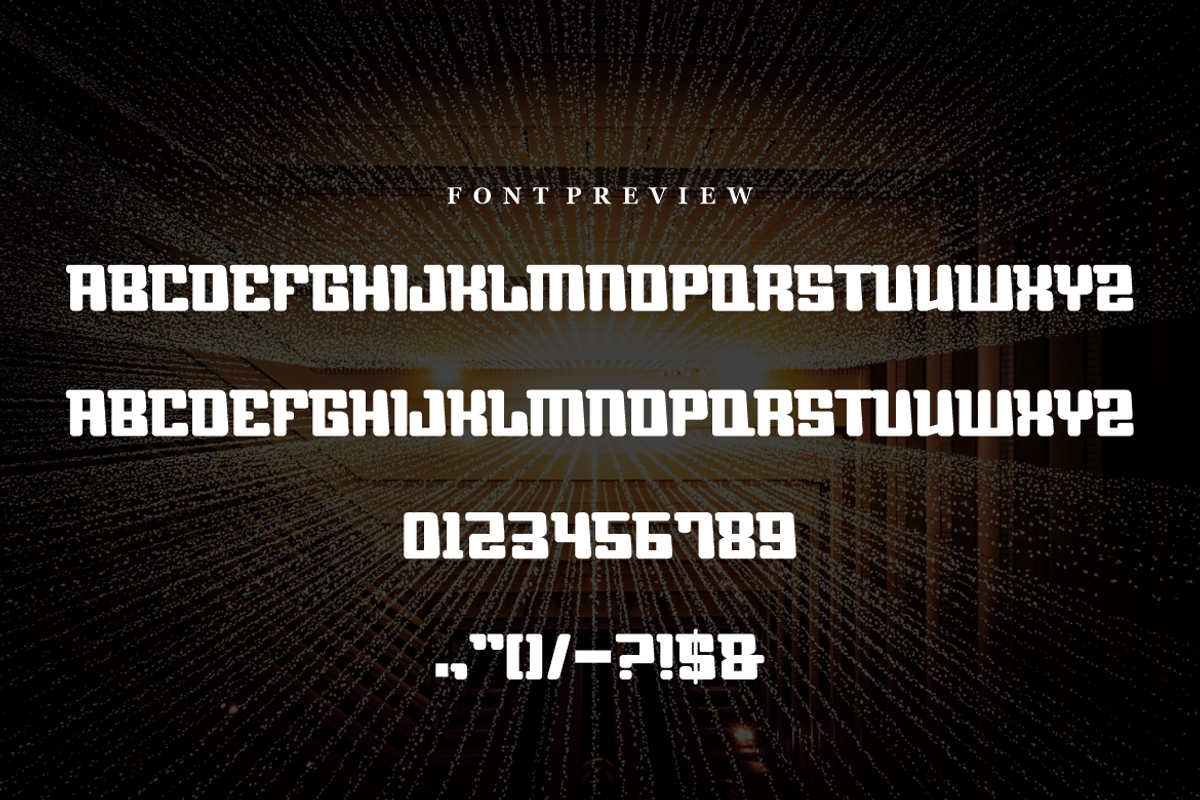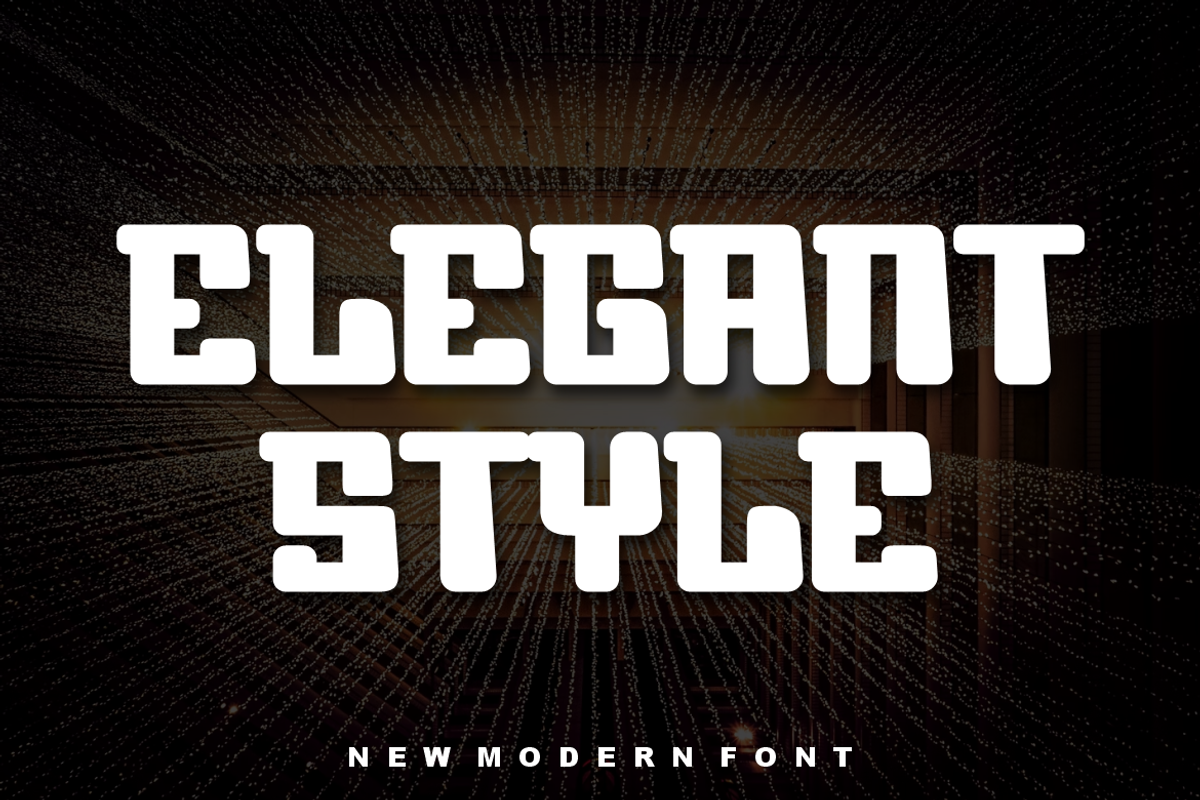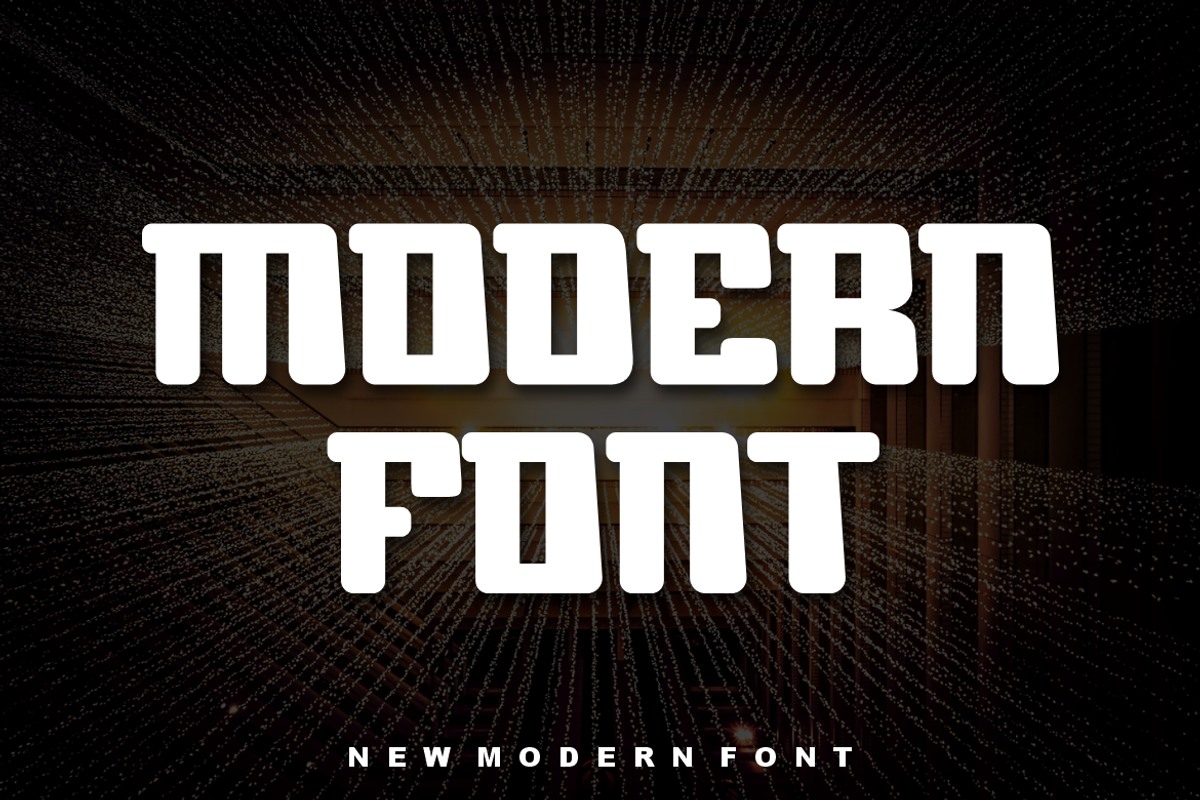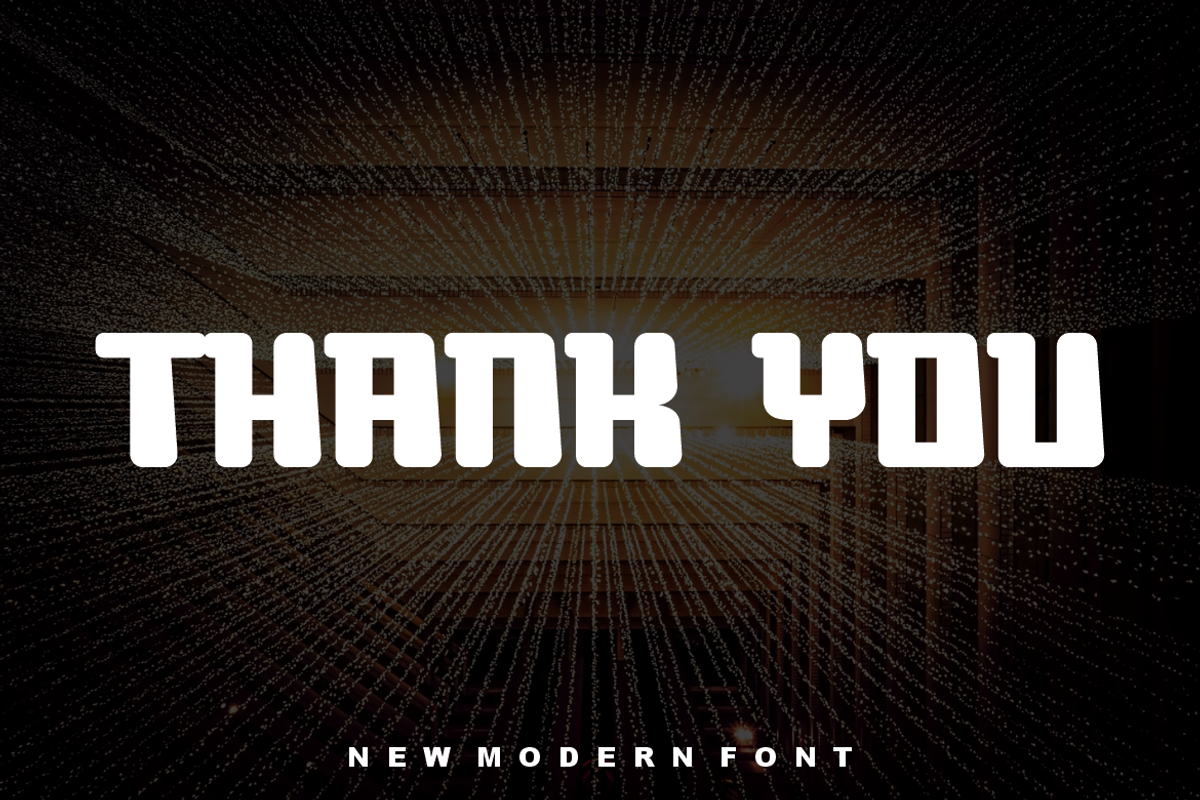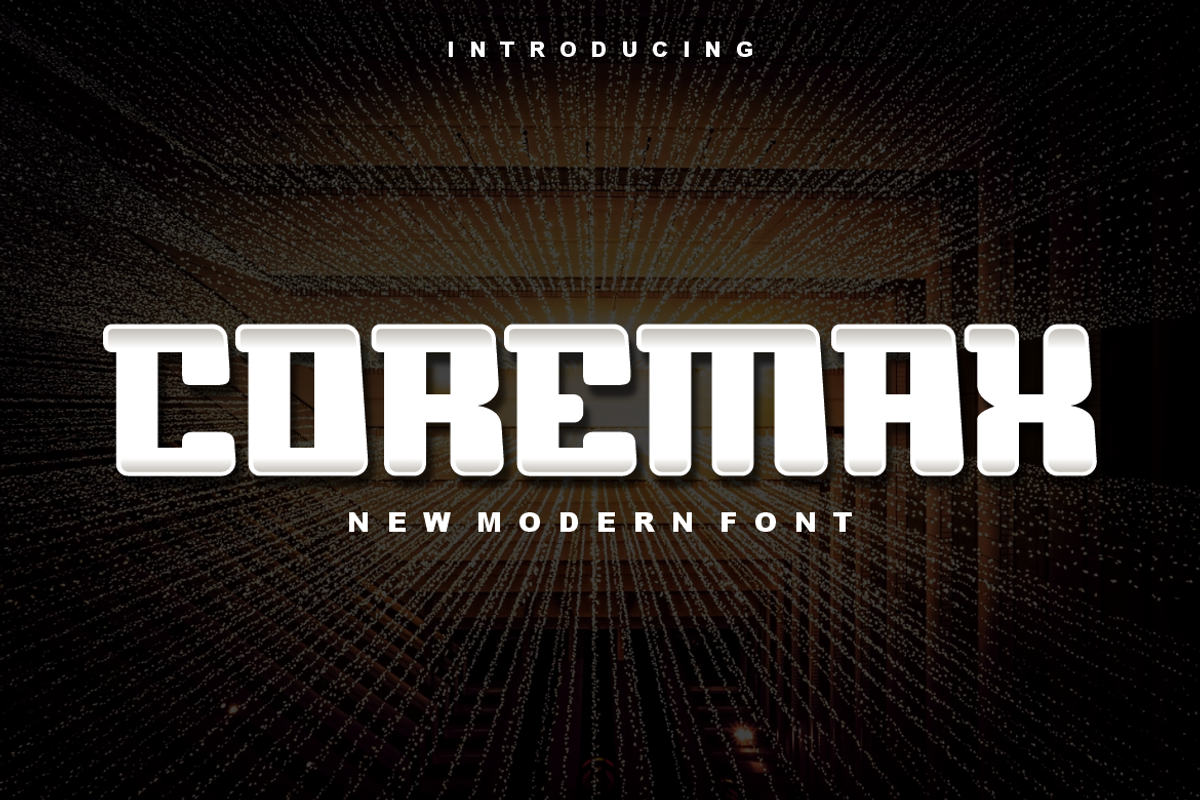
Coremax - Font
- Modern Font is a bold and authentic display font. The font is suitable for any branding project like logo, t-shirt printing,, and many more. outstanding in a wide range of contexts.